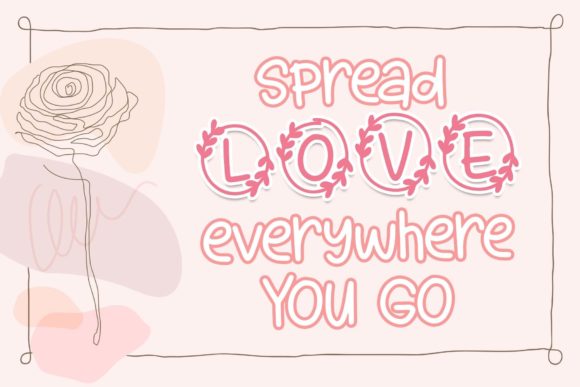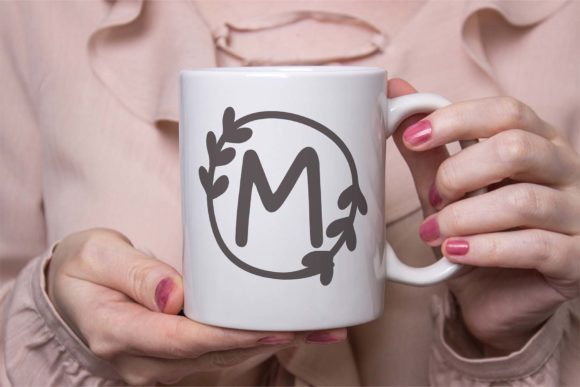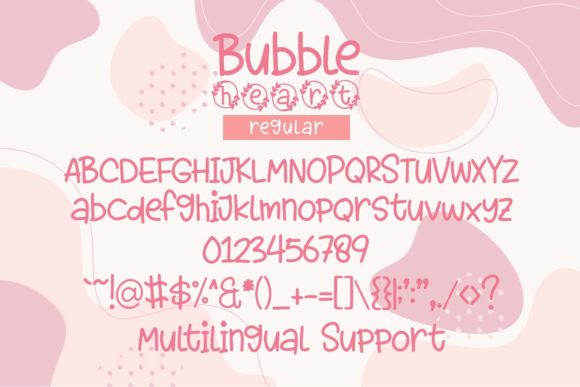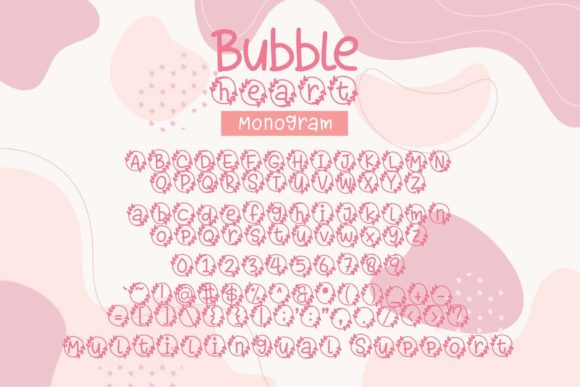
Unleash Your Creativity with the Bubble Heart Font
Have you ever been in the midst of a crafting session, surrounded by scraps of paper, glue, and glitter, only to find that your design is missing that special something? For many of us, it’s the perfect font that can make all the difference. That’s where the Bubble Heart Font comes in – a beautiful, handwritten duo font that adds a touch of whimsy and elegance to any design.
This stunning font is perfect for those who love monograms or enjoy making cute crafts. With its unique, bubbly letters, the Bubble Heart Font allows you to create one-of-a-kind designs that are sure to capture attention. Whether you’re a professional designer or a crafty enthusiast, this font is a valuable addition to your toolkit. Its versatility and charm make it an ideal choice for a wide range of projects, from greeting cards to wedding invitations.
Bubble Heart Font Key Features
- Font Family: Bubble Heart Font is a unique, handwritten font that adds a touch of whimsy and romance to any design.
- Character Count: The font contains over 200 characters, including uppercase and lowercase letters, numbers, and punctuation marks.
- Unique Characteristics: The Bubble Heart Font features intricate, hand-drawn details and a soft, rounded appearance, making it perfect for creating a romantic or playful atmosphere.
Bubble Heart Font Review
I recently had the chance to work with the “Bubble Heart Font” and I’m excited to share my honest review with you. ✨ Here are some things that I think work well with this font:
- Unique design: The “Bubble Heart Font” has a distinct, playful design that’s perfect for projects that need a touch of whimsy.
- Legibility: Despite its quirky appearance, the font is surprisingly easy to read, even at smaller sizes.
However, I did encounter some limitations while working with the “Bubble Heart Font”: ⚠️
- Limited font sizes: While the font is easy to read, it can become difficult to use at very large or very small font sizes.
- Not suitable for formal projects: The “Bubble Heart Font” is perfect for playful projects, but it may not be the best choice for more formal or professional projects.
Overall, I think the “Bubble Heart Font” is a great choice for projects that need a lighthearted, playful touch. While it may not be suitable for all projects, I appreciate its unique design and customization options.
The Bubble Heart Font is perfect for creating whimsical and playful designs, such as:
- Valentine’s Day cards and invitations
- Wedding decorations and stationery